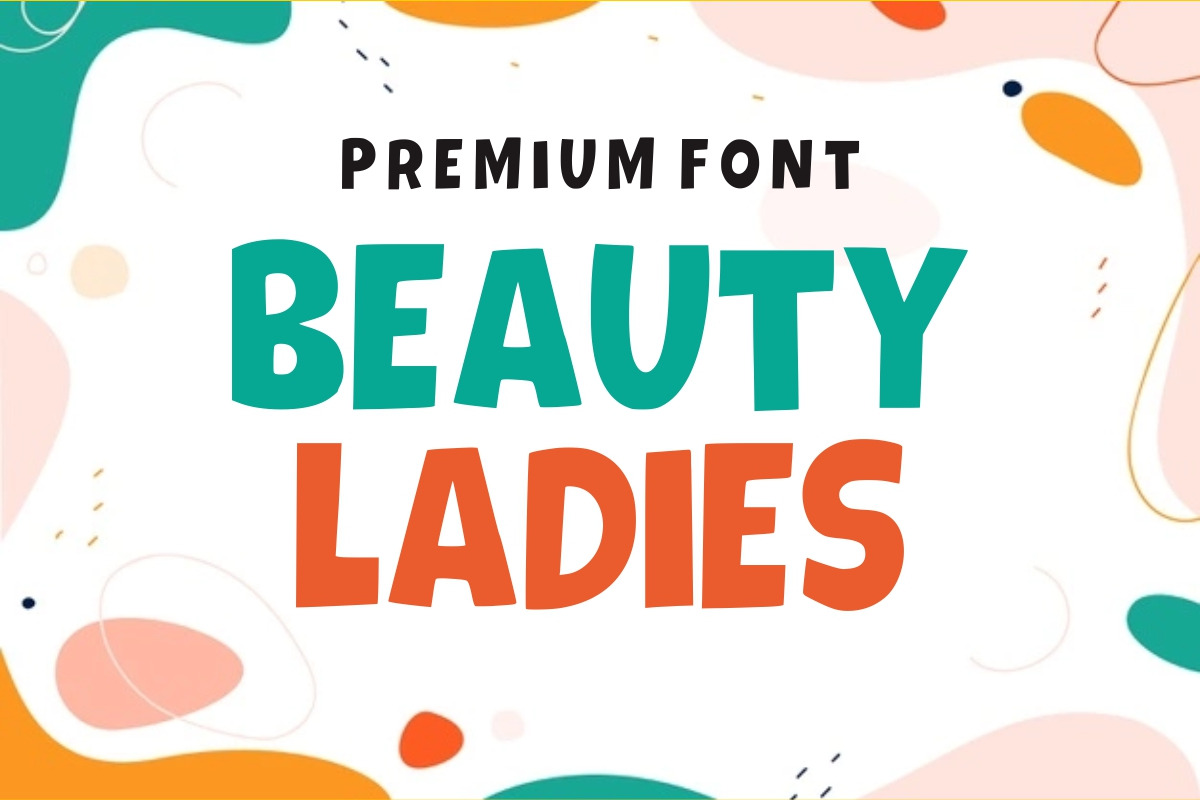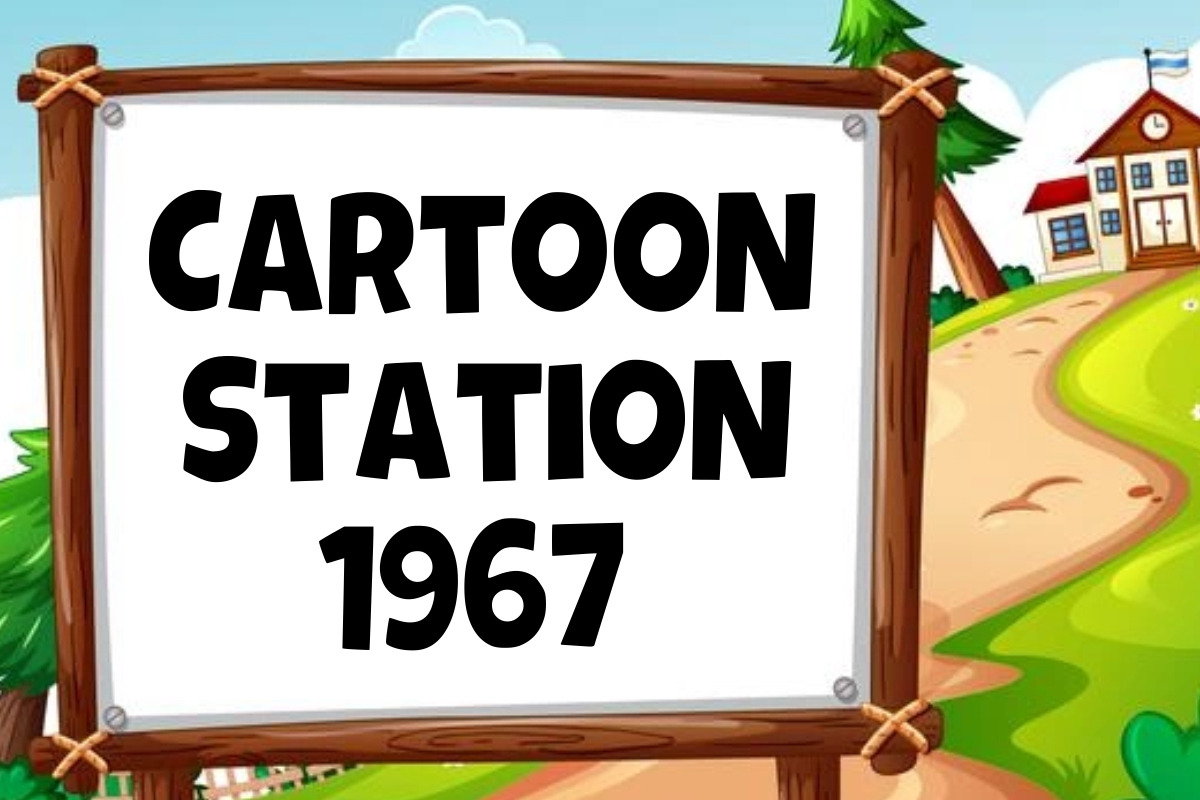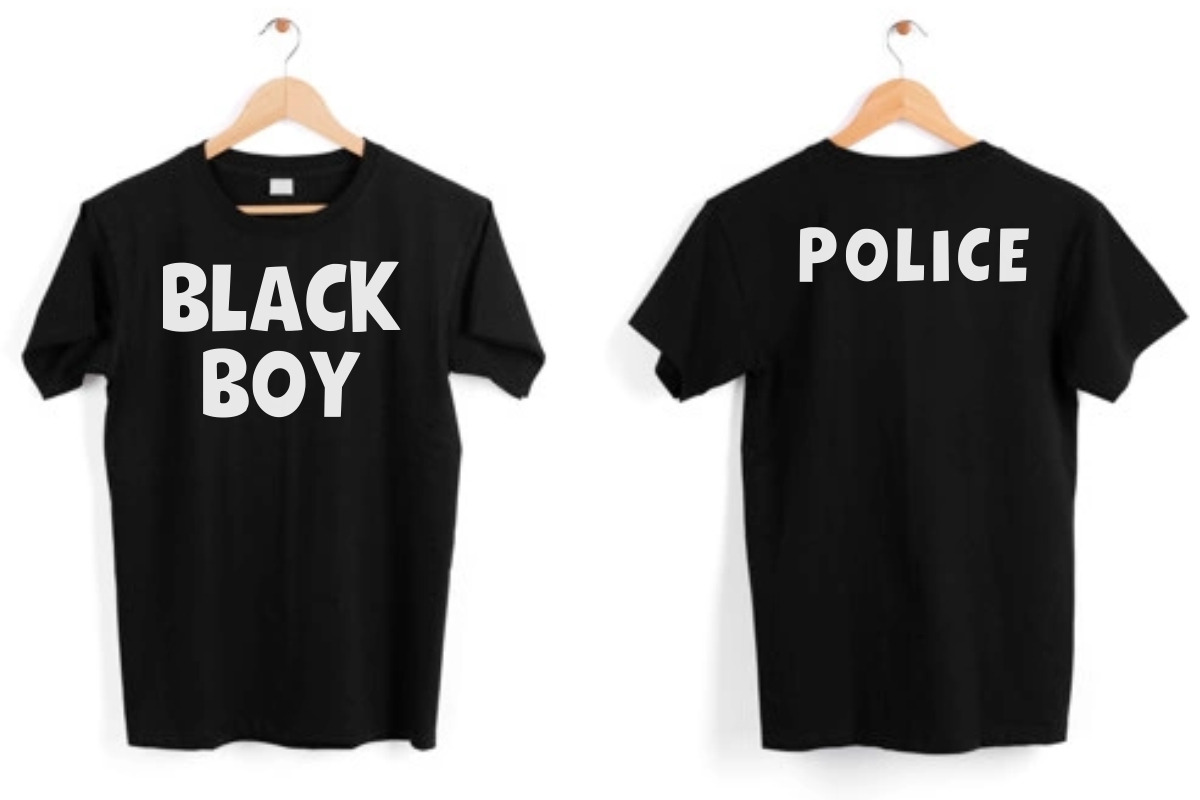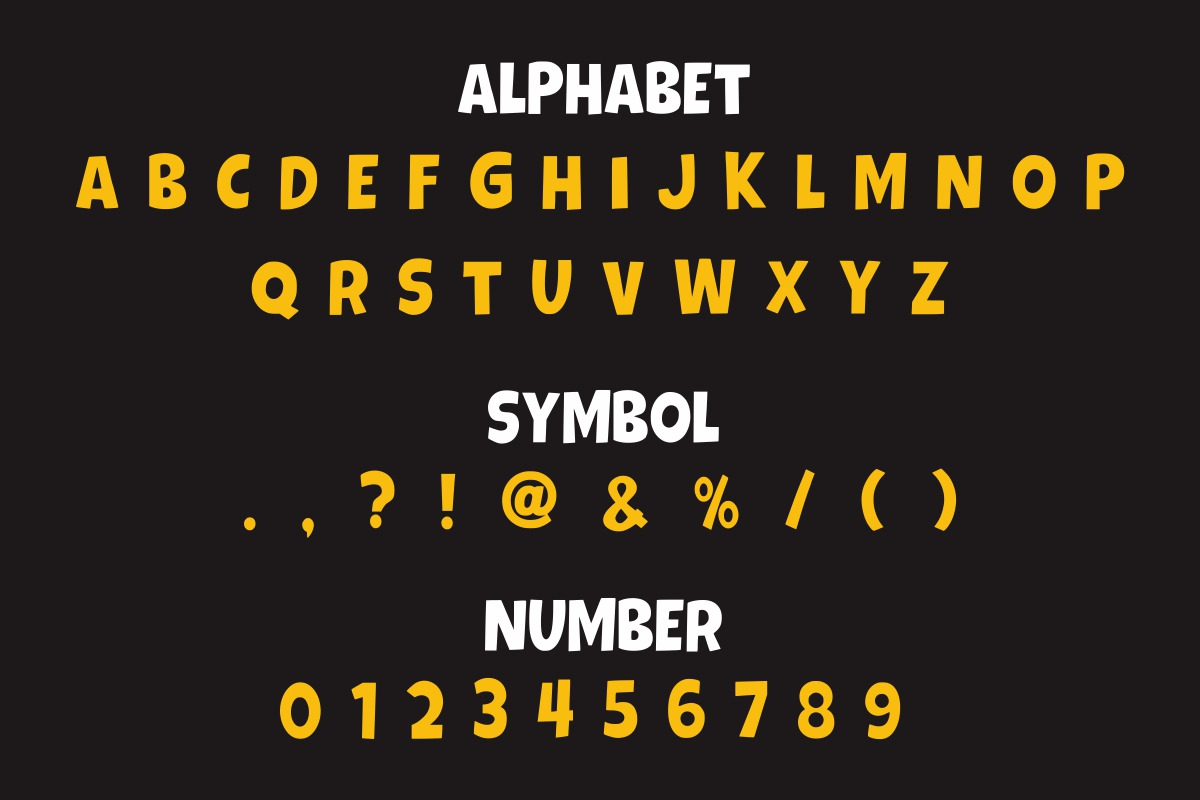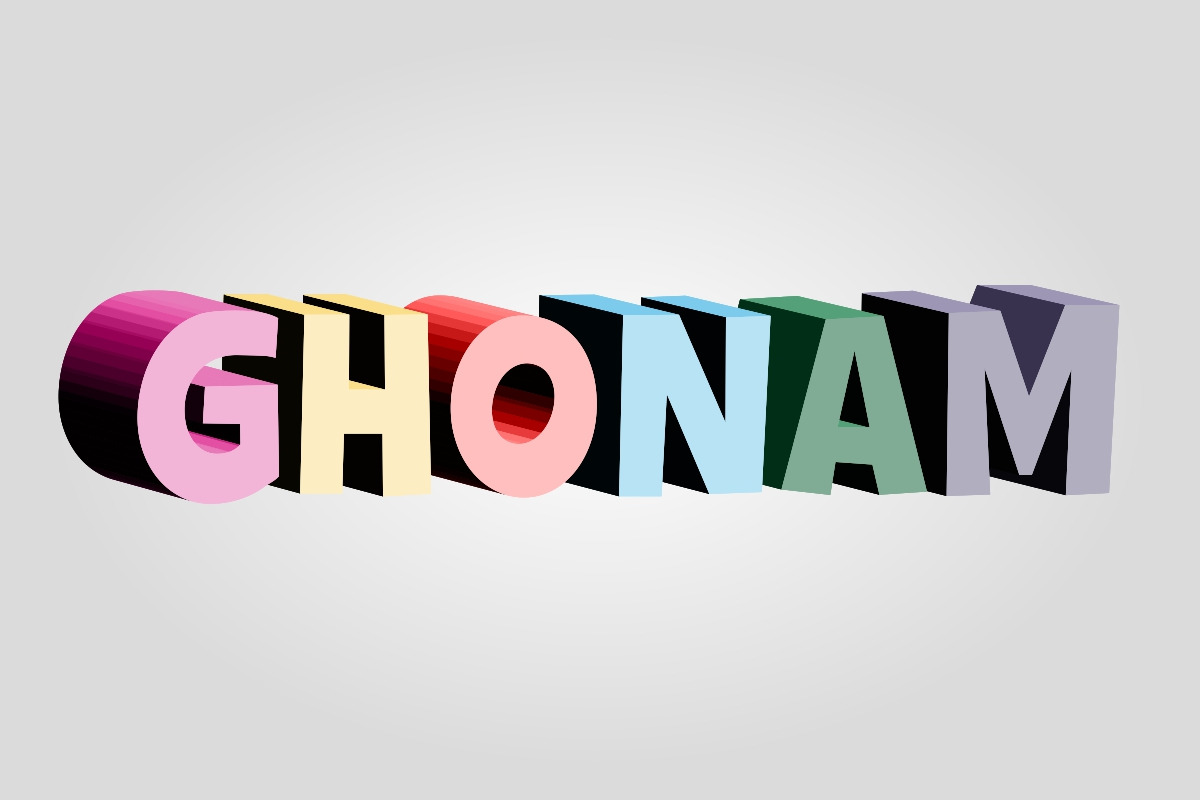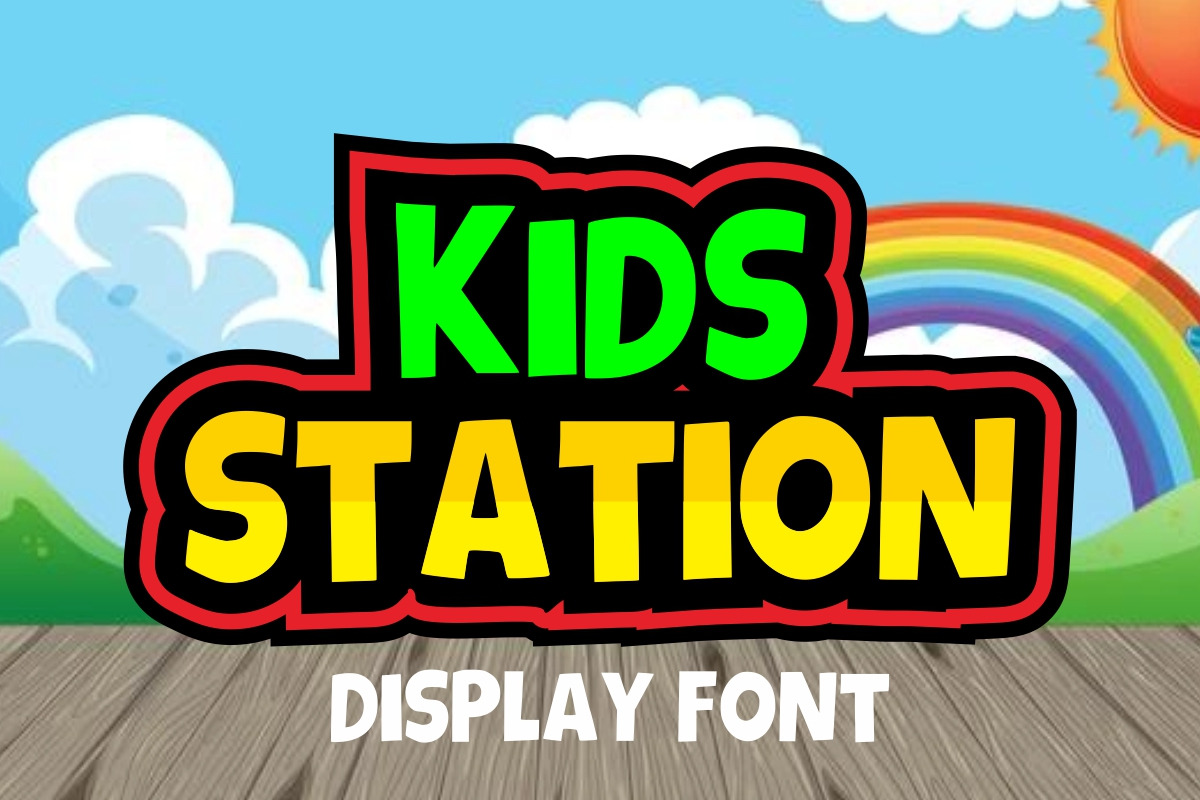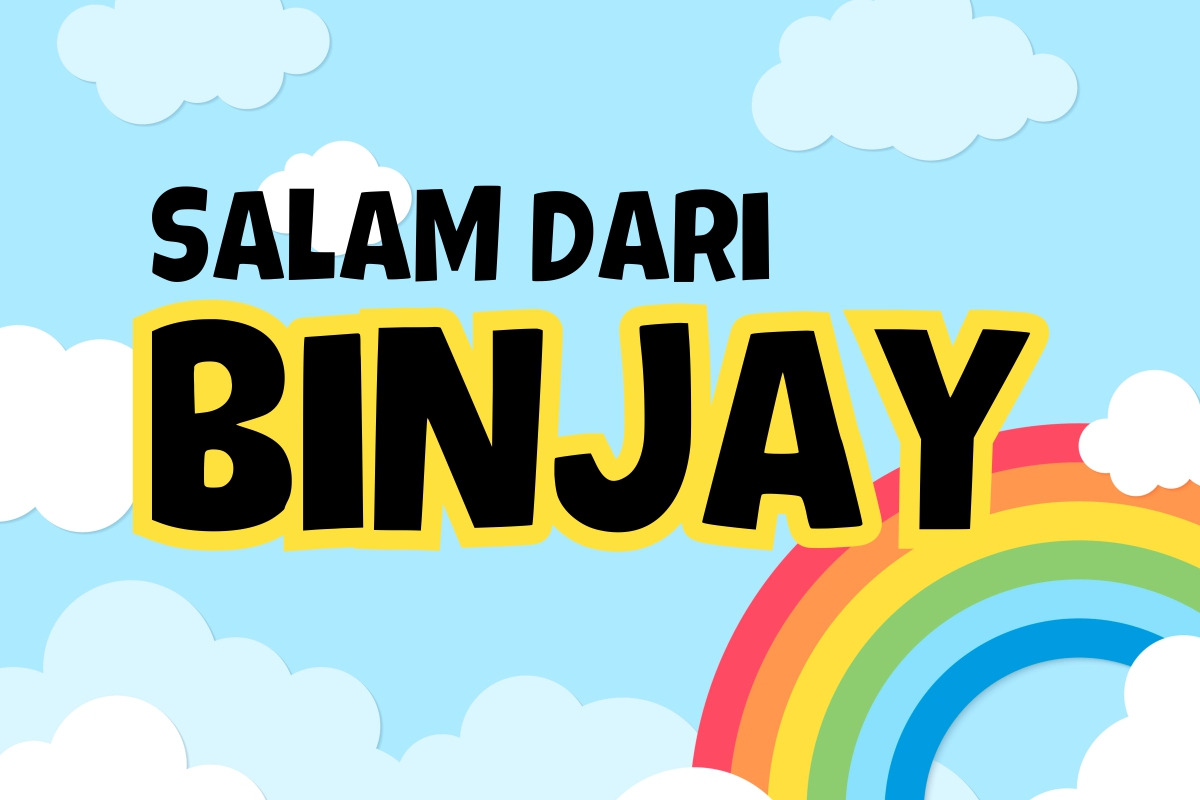
Ghonam - Kids Font
Ghonam is a childish, easy-to-read display font that conveys impeccable friendliness. Whether you’re using it for crafts, digital designs, presentations, or making greeting cards, this font has the potential to become your favorite go-to font, no matter the occasion! It is suitable for any product packaging, invitations, quotes, t-shirts, labels, posters, logos, and everything you wish to develop!